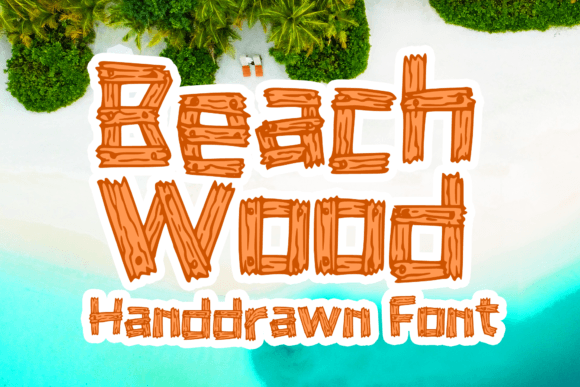
Dive into the world of Beach Wood Font, the captivating display font that captures the essence of summer and adventure. Step into a realm of creativity where wooden textures and playful forms collide, giving life to designs that exude a sense of casual elegance. With its hand-drawn charm, Beach Wood Font dances across your screen, inviting you to embrace the beauty of imperfection.
Experience the versatility of Beach Wood Font, a font that effortlessly adapts to your creative vision. Whether you're crafting heartwarming t-shirts, whimsical kids' book designs, heartfelt greeting cards, vibrant stickers, or eye-catching posters, Beach Wood Font seamlessly blends in, adding a touch of playful sophistication. Its wooden look evokes a sense of warmth and nostalgia, making it the perfect choice for designs that aim to connect with your audience on a deeper level.
Unleash your creativity with Beach Wood Font and let your designs shine. This incredible font is your gateway to a world of design possibilities, empowering you to craft designs that resonate with your audience and leave a lasting impression. Its incredibly versatile style makes it the perfect partner for projects that demand a unique and captivating touch.
Fall in love with the charm of Beach Wood Font and embark on a creative journey that will leave you breathless. Discover the magic of wooden textures and hand-drawn artistry, and let your imagination run wild. Beach Wood Font is the key to unlocking your design potential, transforming your ideas into captivating creations that captivate and inspire.